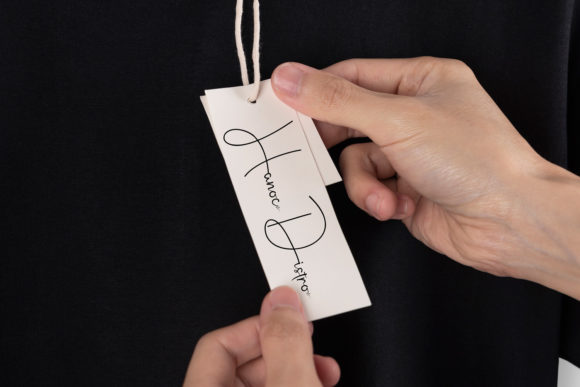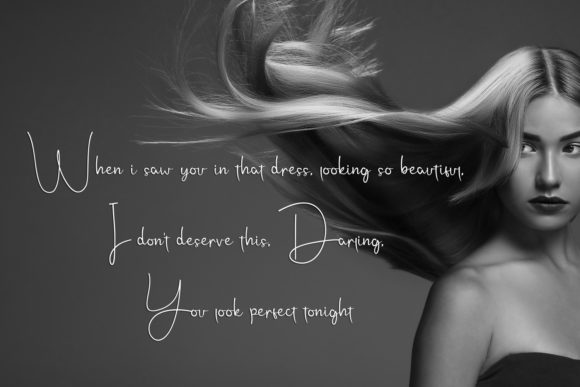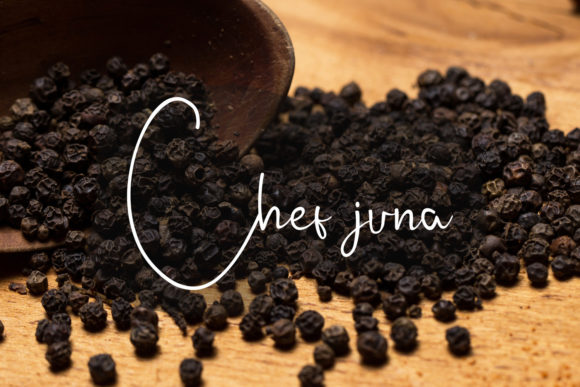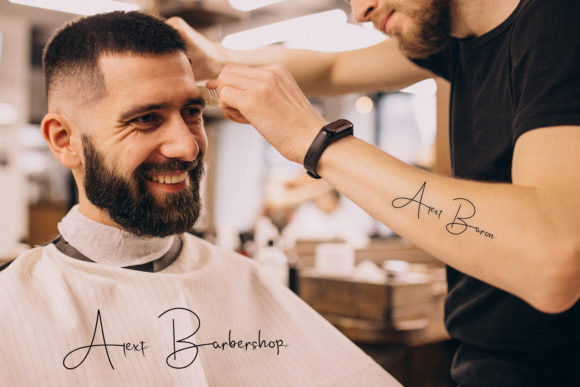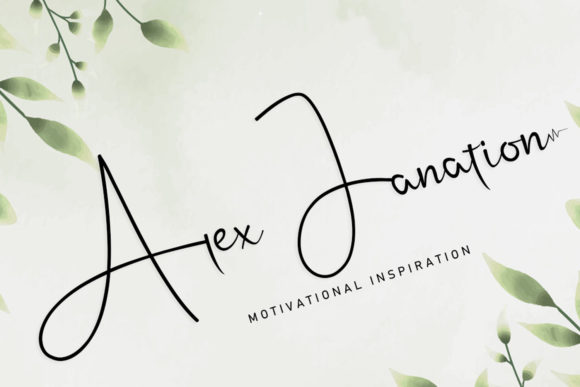
Introducing Andilay Font: A Timeless Handwritten Masterpiece
In the world of typography, a good font can make all the difference in creating visually stunning designs. For designers and crafters looking for a unique and captivating handwritten font, Andilay Font is an excellent choice. This lovely and timeless font is perfect for creating eye-catching logos, branding, and quotes that will leave a lasting impression.
What Makes Andilay Font Special?
Andilay Font is a beautifully crafted handwritten font that exudes elegance and sophistication. Its classic and timeless design makes it suitable for a wide range of design projects, from logos and branding to quotes and social media graphics. The font’s unique character and charm will add a personal touch to any design, setting it apart from more generic fonts.
One of the standout features of Andilay Font is its PUA (Private Use Area) encoding. This means that users can access all the glyphs and swashes with ease, giving them greater flexibility and creative control over their designs. With PUA encoding, designers can effortlessly navigate the font’s extensive character set, including alternates, ligatures, and swashes, to create truly unique and customized designs.
Andilay Font is an ideal choice for designers and crafters looking to add a personal touch to their work. Whether you’re creating logos, branding materials, or social media graphics, this font is sure to impress. Its versatility and elegance make it suitable for a wide range of design projects, from modern and minimalist to vintage and whimsical.
Use Cases for Andilay Font
So, what can you create with Andilay Font? The possibilities are endless! Here are a few ideas to get you started:
- Logos and Branding: Create a lasting impression with a custom logo or branding materials that showcase your unique style and personality.
- Quotes and Social Media Graphics: Add a touch of elegance and sophistication to your quotes and social media graphics, making them stand out in a crowded feed.
- Stationery and Invitations: Create beautiful stationery and invitations that showcase your personal style and add a touch of whimsy to any occasion.
- Packaging and Product Design: Add a personal touch to your packaging and product design, making your products stand out on store shelves.
Tips for Using Andilay Font
To get the most out of Andilay Font, here are a few tips to keep in mind:
- Experiment with Different Sizes: Andilay Font looks great in a variety of sizes, from small and delicate to large and bold.
- Play with Swashes and Glyphs: Take advantage of the font’s PUA encoding to access a wide range of swashes and glyphs, adding a personal touch to your designs.
- Pair with Other Fonts: Combine Andilay Font with other fonts to create a unique and visually appealing design.
| Font Name | Andilay Font |
| Author | Rezastudio |
In conclusion, Andilay Font is a timeless and lovely handwritten font that is perfect for designers and crafters looking to add a personal touch to their work. With its PUA encoding and extensive character set, this font offers endless possibilities for creative expression. Whether you’re creating logos, branding materials, or social media graphics, Andilay Font is an excellent choice. So why wait? Download Andilay Font today and start creating stunning designs that will leave a lasting impression!